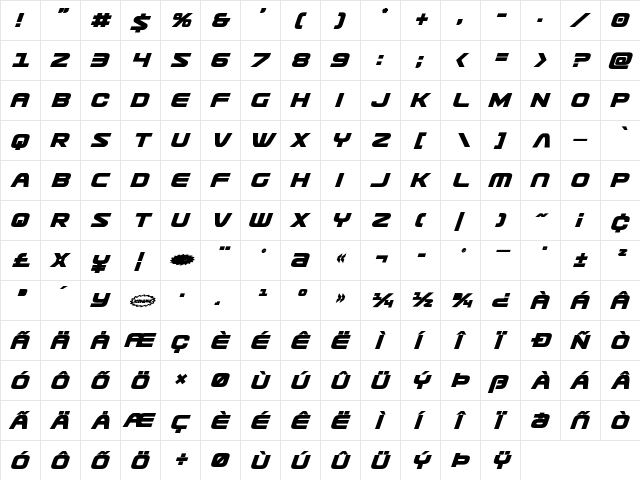
Usuzi Bold Italic Bold Italic
Design Context for Usuzi Bold Italic Typeface
Usuzi Bold Italic offers clean, dependable letterforms without strong stylistic allegiance, making it a practical choice for designers who need flexibility. Its italic angle brings a sense of urgency and motion to the letterforms. Its bold stroke weight gives it real presence on the page.
Pro Tip: Use Usuzi Bold Italic for emphasis, pull quotes, and subheadings where its slanted energy can add rhythm to the layout.